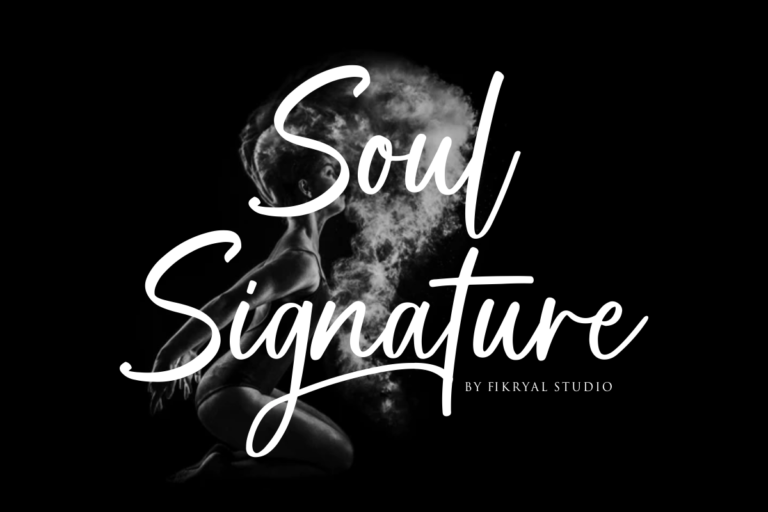
Soul Signature
Soul Signature – Font is a new stylish Signature font. It’s perfect for logo,branding, tittle, social media posts, advertisements, product packaging, product designs, label, photography, watermark, special event,magazine,web design,etc.
Features :
Soul Signature ( Uppercase, Lowercase )
Ligatures
ss01
ss02
ss03
Beginning and ending
Extra swashes
Middle swashes
Multilingual support